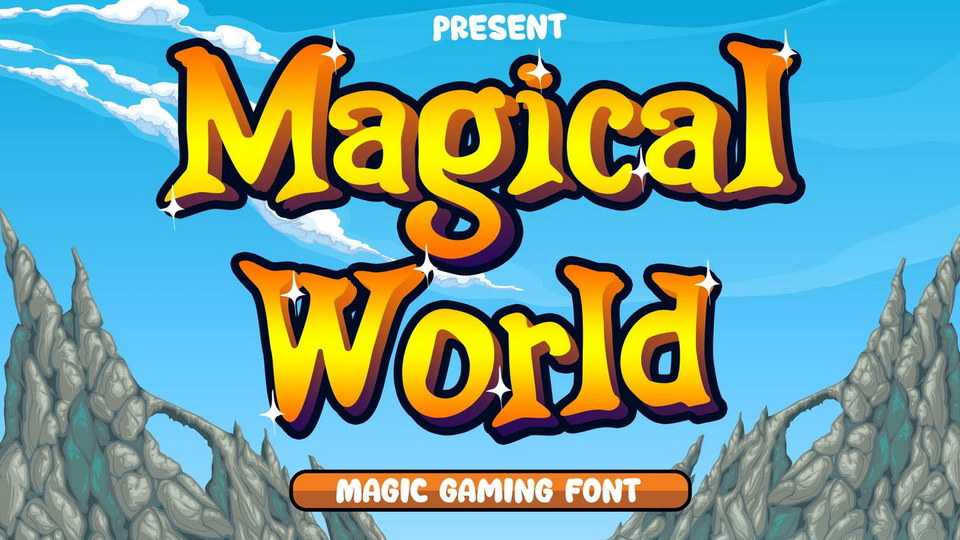
Download Magical World font, a fancy typeface inspired by the world of the wizard, mythology, and the legendary fight between Elf, Human, Orc, and Dwarf in the middle of earth. Magical World is the main and only choice to go.